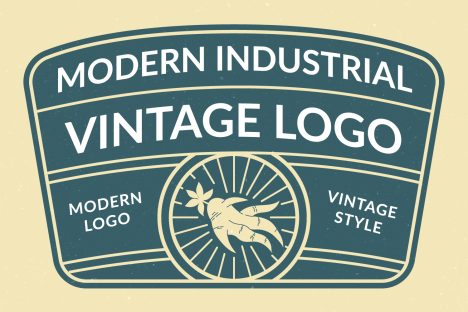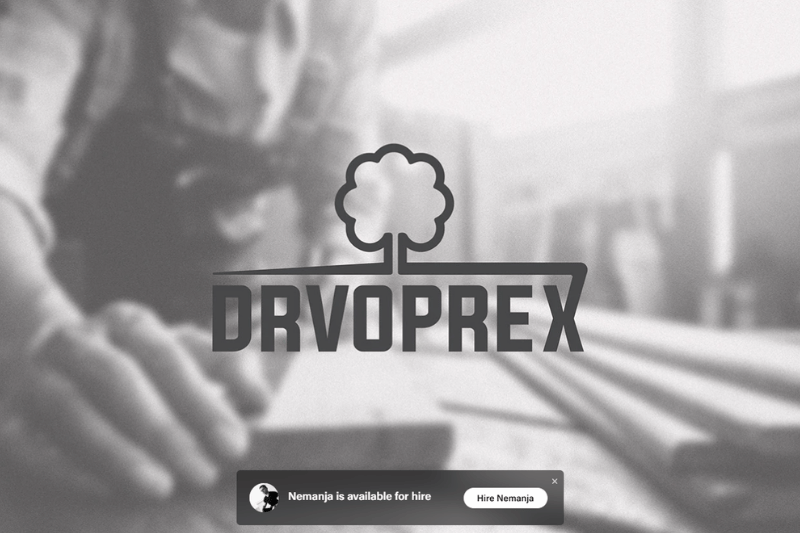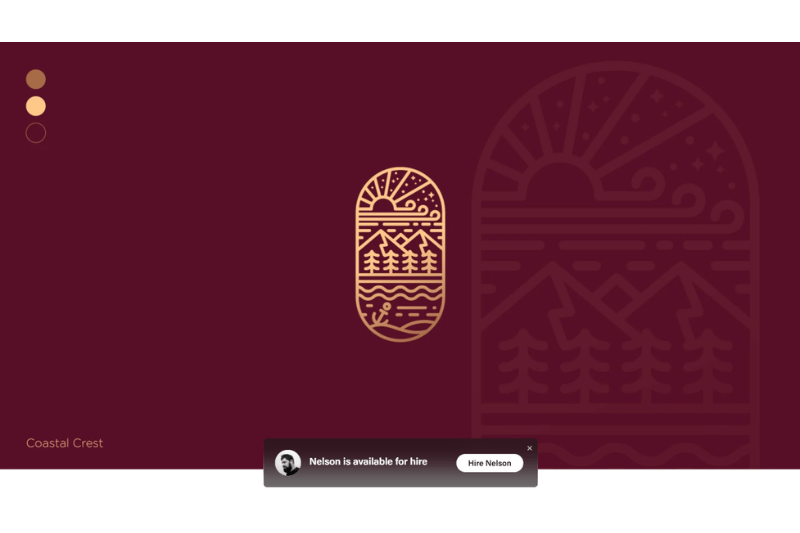
Mastering Modern Industrial Vintage Logos: Ultimate Design Principles Explained
In the ever-evolving contemporary branding world, modern industrial vintage logos are one of the many styles that bridges the classic character with a more functional visual approach. Inspired by the industrial factory’s signages and workshop logos, this style can be tailored to the needs of modern branding, ensuring that it stays relevant to the era. As a result, the logos will feel bold, visually truthful, and not need any excessive decoration.
Unlike the classic industrial vintage style that tends to be ornamental, modern industrial vintage emphasizes clear structure, strong typography, and a controlled color palette. These elements make a logo appear strong and easily applicable in various media, be they physical or digital. Additionally, its functionality makes this style quite a go-to for brands that wish to be professional without losing their vintage character.
This article builds on the preceding article’s exploration of modern vintage logo styles. This time, we’ll go further into this design, starting with the structure, typography, and how the visual elements of modern industrial vintage logos work in a contemporary branding context.
What Are Modern Industrial Vintage Logos?
Modern Industrial Vintage Logos
Modern industrial vintage logos are a design style that draws inspiration from the visual character of classic industrial aesthetics. While rooted in the past, this style is thoughtfully adapted to suit contemporary branding. It embraces cleaner lines, practical structure, and a more modern sensibility. Rather than literally replicating traditional industrial vintage logos, this type of logo selectively refines and reinterprets their core elements to create a look that feels both timeless and relevant.
The utilitarian identity system primarily influences this style, prioritizing clarity and readability. The characteristics of this logo lie in its minimal ornaments and each of the visual elements’ clear functionality. As a result, the logo feels more tough, professional, and easily applicable in various media, be they print or digital ones.
Modern industrial vintage logos greatly contrast the classic industrial vintage logos. Vintage textures and details are present; however, they are more controlled and relevant for the current era. This style works perfectly for brands seeking to evoke an industrial nuance without looking too old or too heavy visually.
The Primary Visual Characters of Modern Industrial Vintage Logos
Modern industrial vintage logos build their visual character with a solid, simple, yet function-oriented approach. The main elements include a strong structure, solid typography, and clear visual hierarchy, all tailored to the modern branding needs.
Structure and Composition
The structure of modern industrial vintage logos is generally simple and direct. The basic geometric shape is often used to maintain visual stability, while the layout is arranged in a controlled manner, ensuring the main information is readable. There is no element put without a reason, as each of them has a clear function for the overall design composition.
Industrial-Nuanced and Functional Style
The nuance of the industrial world is presented through a utilitarian approach, not by adding excessive decoration. The visual references, such as factory signages, heavy machinery labels, or numbering systems in the industrial field, are all translated into a logo with bold typography and structured hierarchy. This approach makes the logo appear visually honest, not too excessive, and definitely effective.
With these characteristics, modern industrial vintage logos often appear solid and professional, ensuring that the classic vibe is present without being visually overwhelming.
Typography Used in Modern Industrial Vintage Logos
Typography is the most dominant element in a logo. It functions as the bringer of the main character. The industrial approach demands the use of sturdy fonts with great readability that do not depend on the decorative ornaments. That’s why, in general, the font type used in a logo has a simple structure yet strong visual weight.
Bold sans serifs and slab serifs are popular choices because they provide a sense of functionality and stability. Furthermore, the use of capital formats improves readability and conveys the nuance of utilitarianism as influenced by industrial signage. The spacing between characters is typically large, ensuring that the text remains clear and readable even in small-sized media.